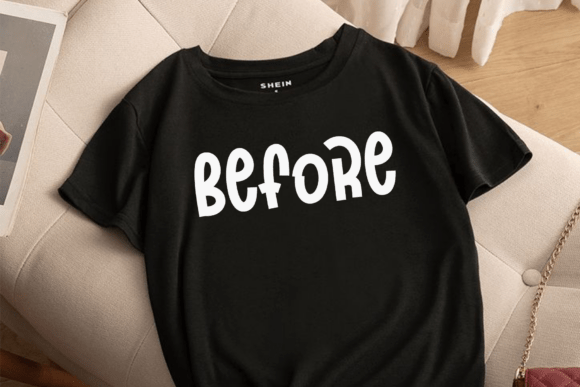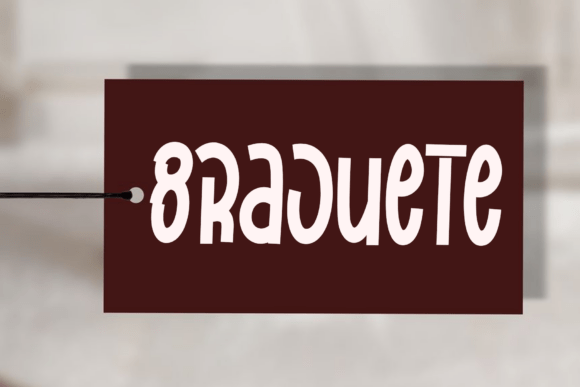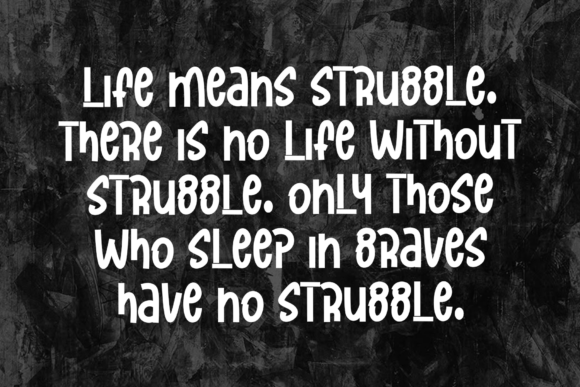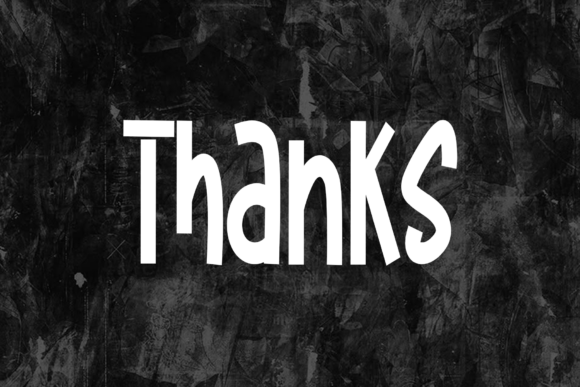
Introduction to Magic Blush Font
Add a dash of whimsical mystery to your creative work with Magic Blush, a modern display font designed to enchant.
This typeface features a tall, condensed silhouette with charmingly irregular character heights and unique, hand-penned details Its bold presence and quirky proportions evoke a sense of โurban magic,โ making it a fantastic choice for fantasy book titles, alternative streetwear branding, edgy editorial headers, and unconventional social media graphics.
Key Features of Magic Blush Font